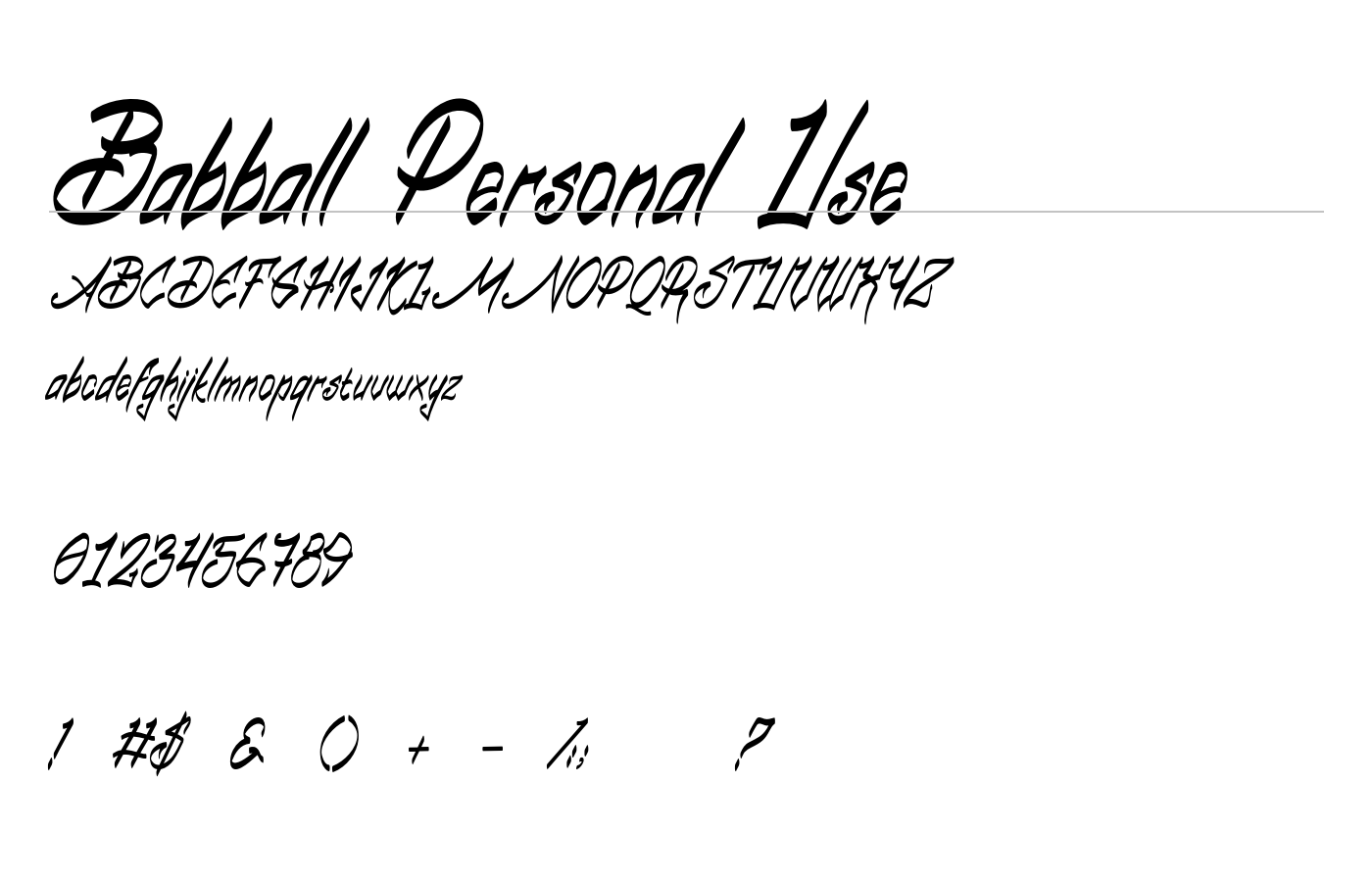
Babball Personal Use Font is a stylish script font with a dynamic, handwritten feel characterized by its sharp, flowing strokes and elegant slant. Its medium weight and slender letterforms bring a sense of sophistication and energy, making it perfect for creative projects, personal branding, and invitations that seek a modern yet artistic touch. This font works best in display settings where its unique personality and graceful curves can stand out and add flair.
| Font family | Babball Personal Use Font |
| Designer | Vaca Tama |